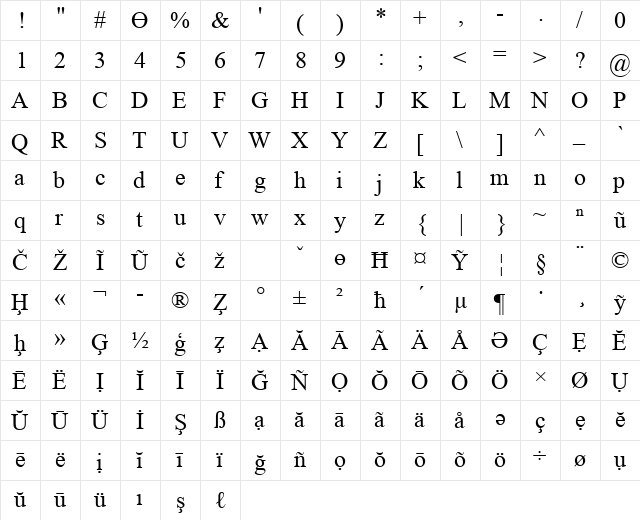
Masnavi e Nauromane Iruntine
Iruntine · Liborsoft Typography Libor Sztemon ·
Foundry Liborsoft Typography
DesignerLibor Sztemon
Design Context for Masnavi e Nauromane Typeface
Masnavi e Nauromane takes a measured approach to typography — its balanced proportions and neutral character make it a reliable workhorse for both digital and print work.